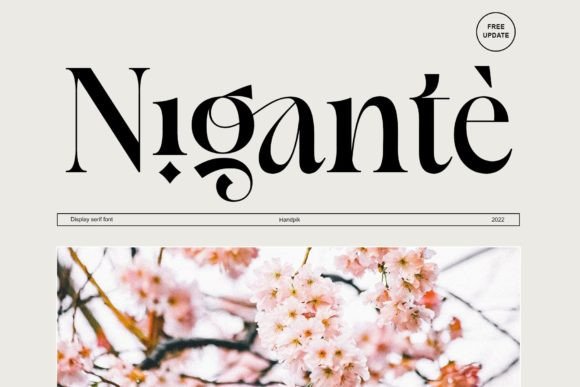
Behold, Nigante Font - An Ode to Timeless Beauty and Sophistication
In the realm of typography, where form and meaning dance in harmonious union, there exists a font that captivates hearts and ignites imaginations. Meet Nigante Font, an exquisite serif masterpiece that transcends the boundaries of ordinary typefaces. With its elegant curves and refined serifs, Nigante Font is a testament to the enduring power of classic design.
Journey into a world where letters transform into works of art, where each character carries a story, and every word whispers a secret. Nigante Font's distinct and sophisticated letters make this font more than just a collection of glyphs; it's an invitation to embark on a visual symphony.
As you navigate through the vast digital landscape, Nigante Font emerges as a beacon of clarity and distinction. Its clean lines and crisp edges render text with remarkable precision, ensuring your message shines through with unwavering clarity. Whether you're crafting a personal blog, designing a captivating website, or creating marketing materials that demand attention, Nigante Font is the perfect choice.
Discover the font that has captured the hearts of designers and tastemakers worldwide. Nigante Font's versatility knows no bounds, effortlessly adapting to a myriad of creative endeavors. From elegant wedding invitations and business cards that exude professionalism to eye-catching posters and social media graphics that ignite engagement, Nigante Font elevates your designs to new heights of sophistication.
Immerse yourself in a world where typography meets artistry. Nigante Font's incredibly versatile style empowers you to create spectacular designs that leave a lasting impression. Its delicate flourishes and subtle nuances add a touch of grace and charm to any project, transforming the mundane into the magnificent.